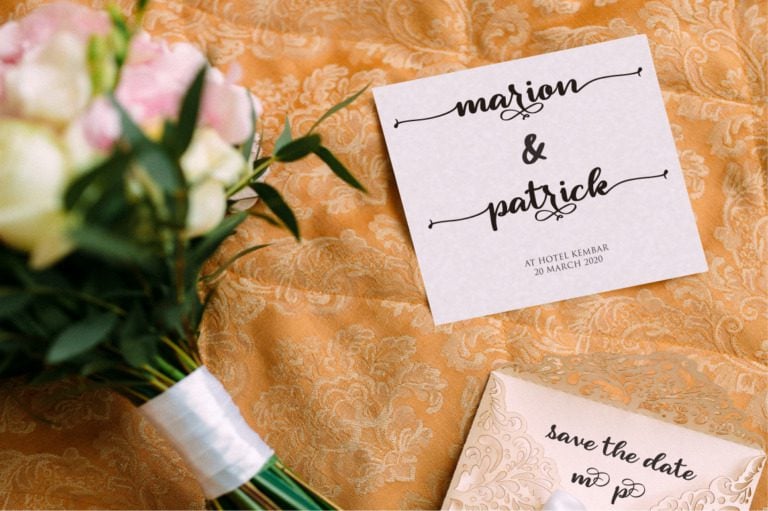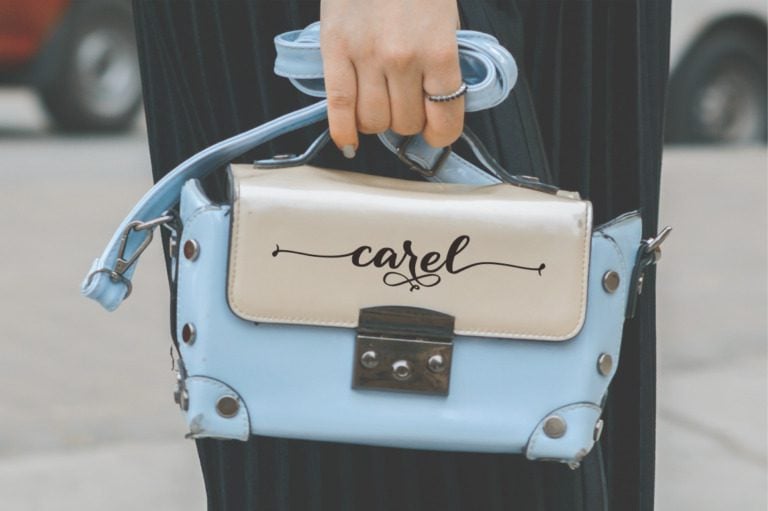
Rollcake Font
Rollcake Font is a font characterized by its playful, cheerful, and sweet appearance. It often features rounded, bubbly letterforms and elements inspired by roll cakes, sweets, and other dessert-related themes. This font is perfect for projects that require a fun, vibrant, and youthful atmosphere, such as bakery menus, packaging, and social media posts.